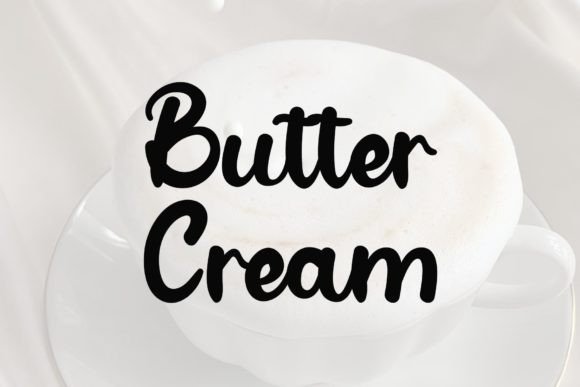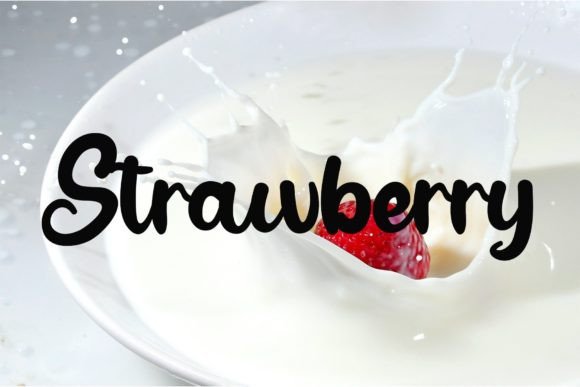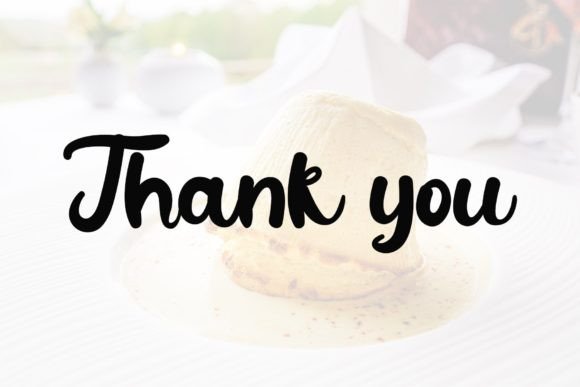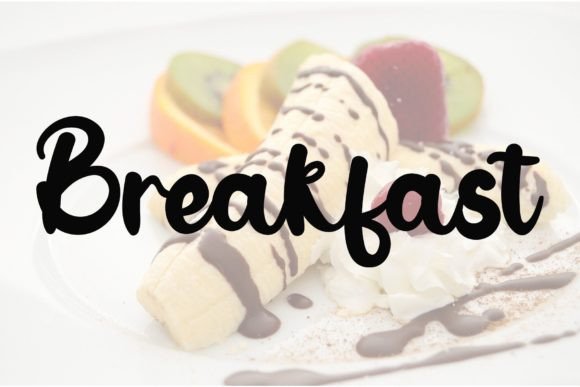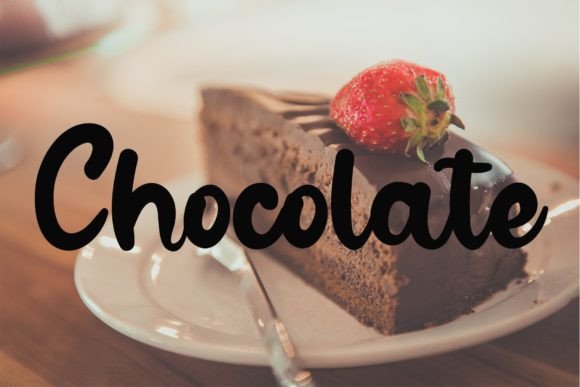
Vanila Font
About Vanila Font
“Vanila Font: Elevating Your Work with Elegant and Curvy Lines
Introducing Vanila, a gorgeous handwritten font designed to make your work stand out through its elegant and curvy lines. Perfect for a wide range of applications, including product packaging, branding projects, magazine covers, social media, weddings, and creating text overlays, Vanila adds a touch of sophistication to your projects.
More than just a font, Vanila is an artistic tool that embodies elegance with its carefully crafted curves and lines. The handwritten style gives it a personal touch, making it suitable for projects where a sense of authenticity and beauty is desired.
The elegant and curvy lines of Vanila contribute to its overall visual appeal, making it a standout choice for various design contexts. Whether you’re creating a brand identity, designing a magazine cover, or adding text to social media graphics, Vanila effortlessly enhances the aesthetics of your work.
Vanila’s versatility shines through, making it suitable for a diverse range of creative projects. Its handwritten charm brings warmth and character to your text, creating a visual experience that is both inviting and memorable.
For product packaging, Vanila becomes a distinctive element that adds a layer of sophistication. The font’s graceful lines contribute to an overall design that is visually appealing and leaves a lasting impression on consumers.
In the realm of weddings, Vanila adds a touch of romance and elegance to invitations, signage, and other stationery. Its ability to express words above various backgrounds makes it a versatile choice for conveying messages in a visually pleasing manner.
In conclusion, Vanila is more than just a font; it’s an elegant brushstroke that enhances the beauty of your creative projects. Let Vanila be the source of inspiration that elevates your work, creating a visual language that resonates with sophistication and charm. Whether you’re working on branding or social media graphics, Vanila stands ready to add a touch of elegance to your designs.”